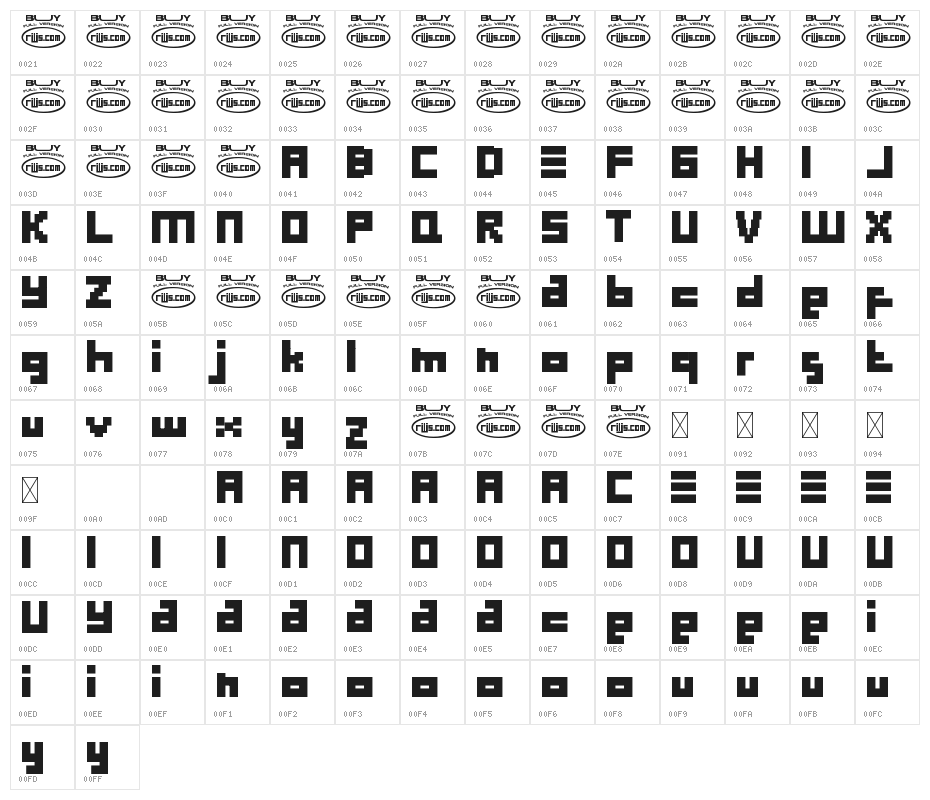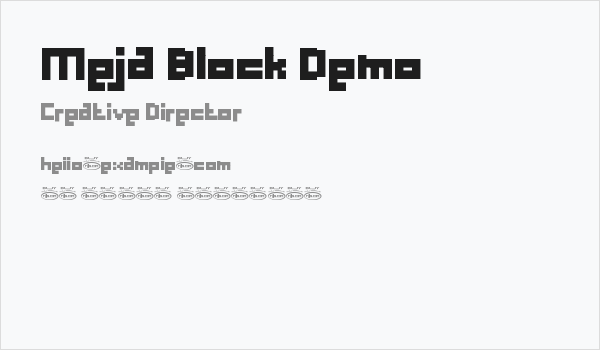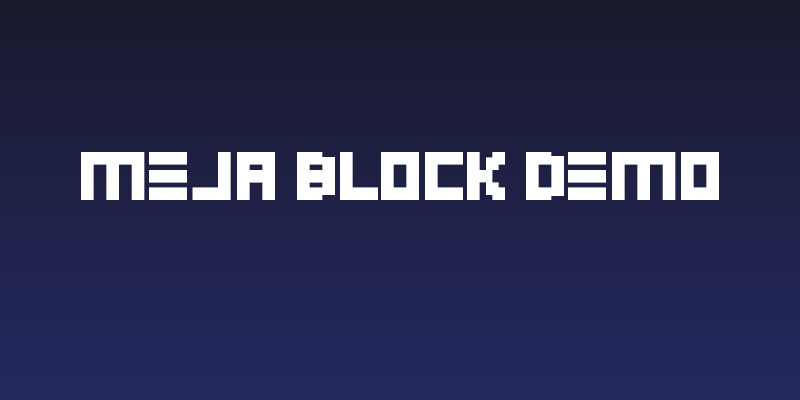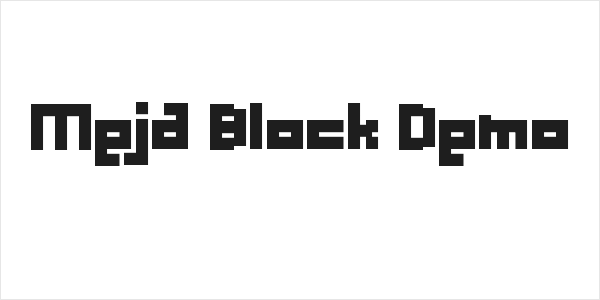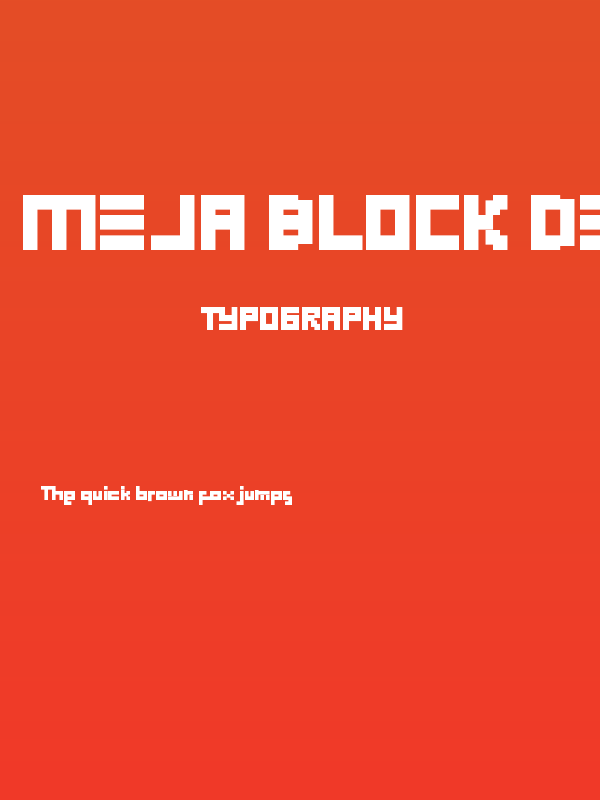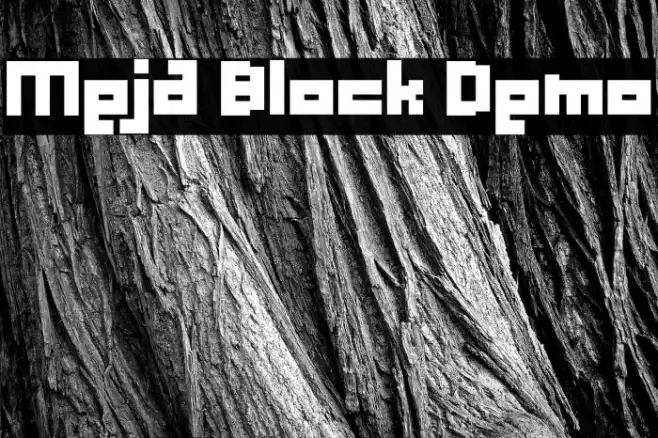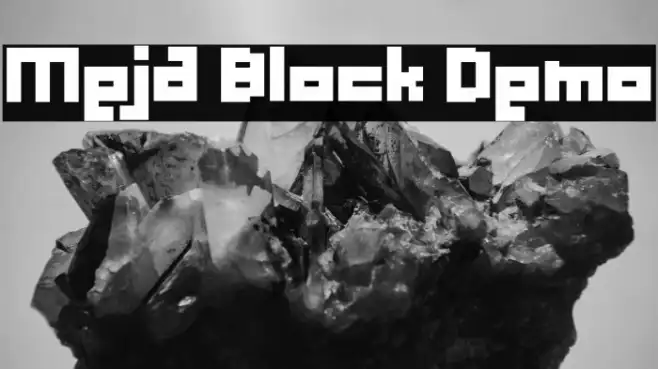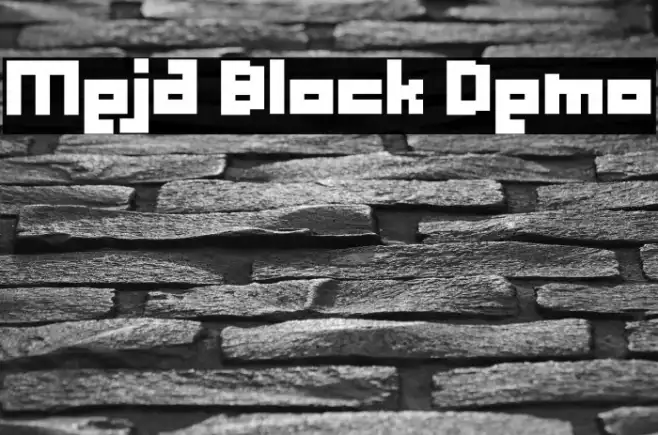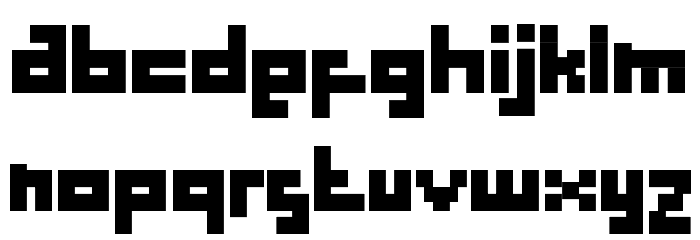
Meja Block Demo Font
Meja Block Demo Description
This font features a bold, blocky design with a distinctly geometric aesthetic. The characters are constructed with straight lines and sharp angles, giving it a modern and digital feel. The uppercase and lowercase letters maintain a consistent height, contributing to a uniform appearance. The numbers and special characters follow the same design principles, ensuring coherence across all glyphs. This style is reminiscent of retro video game graphics, making it ideal for projects that require a futuristic or tech-inspired look.
| Proposed Projects | Ideal for video game graphics, tech branding, digital art, and futuristic-themed designs. |